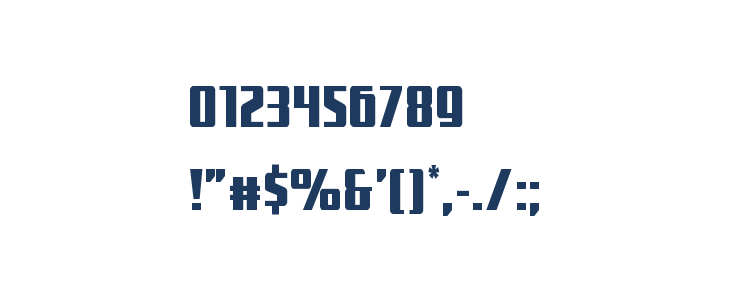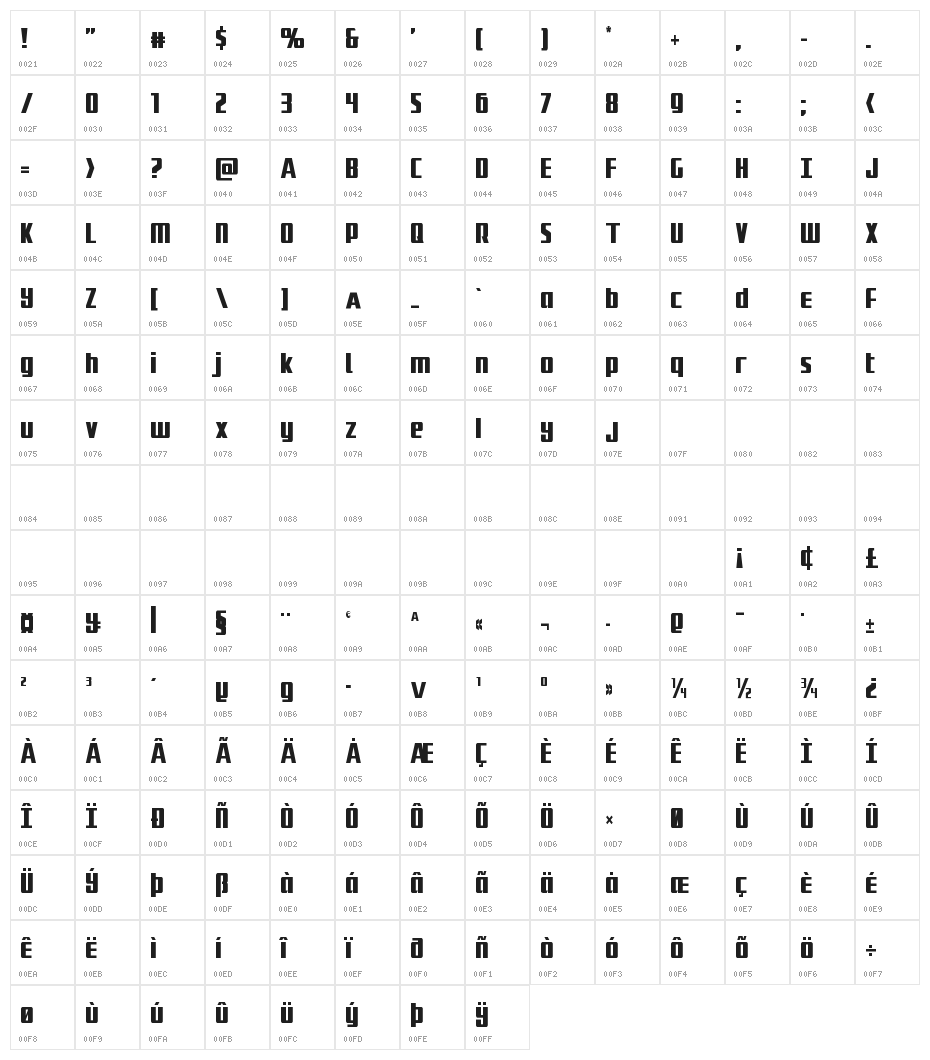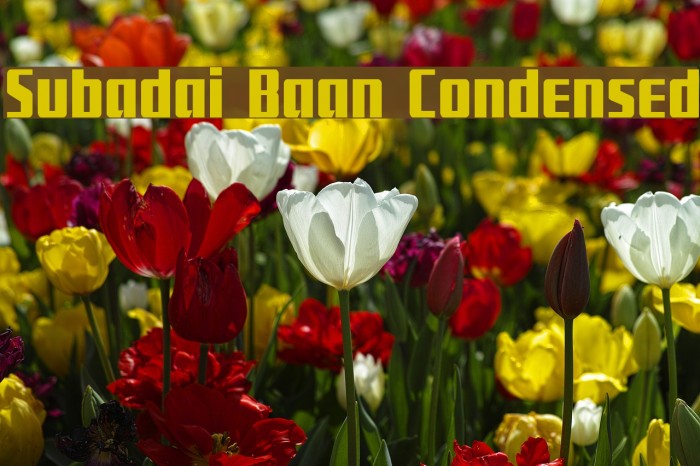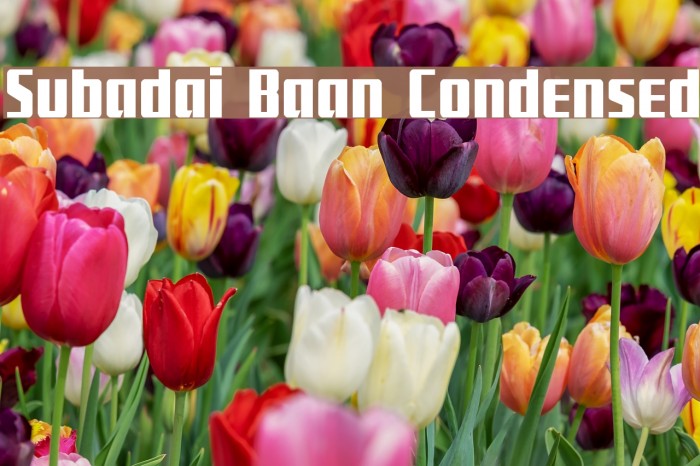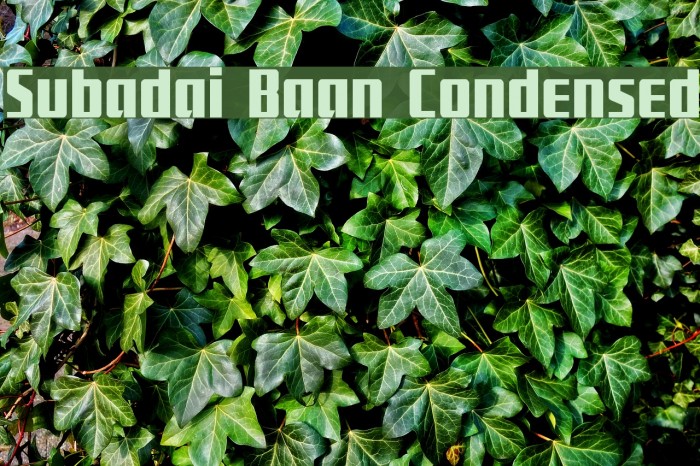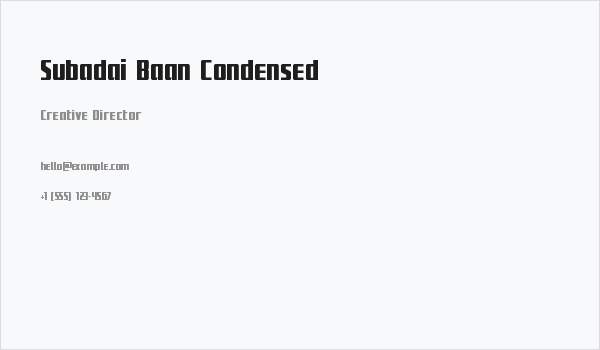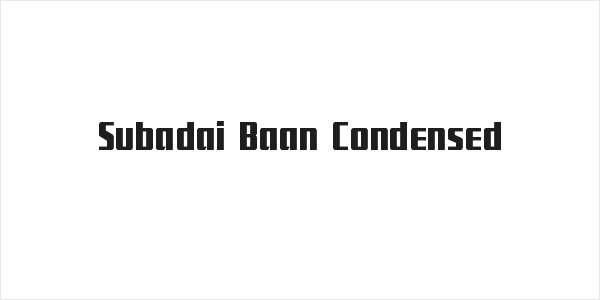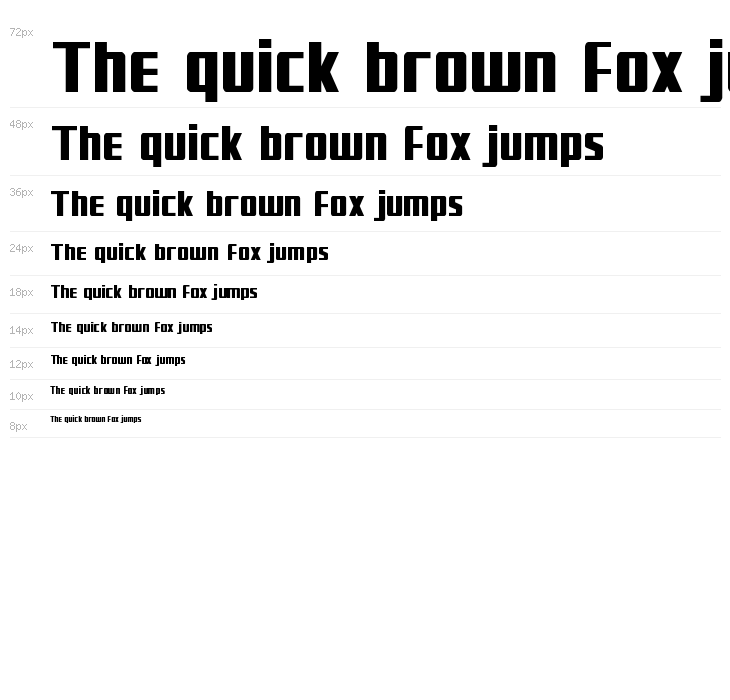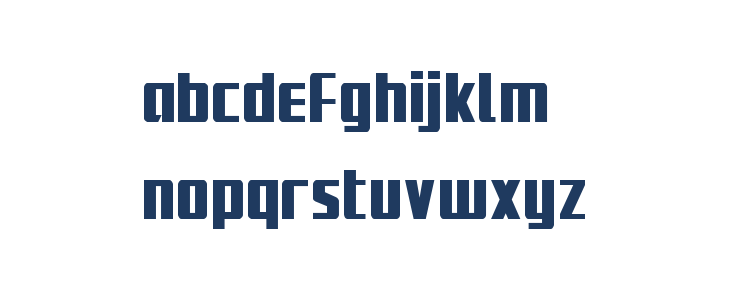
Subadai Baan Condensed Font
Subadai Baan Condensed Description
This font features a bold and assertive design with a condensed structure, making it ideal for impactful headlines and attention-grabbing text. The characters are uniformly thick, providing a strong visual presence. The uppercase and lowercase letters maintain a consistent height, contributing to a cohesive and structured appearance. The numerals and special characters are designed to match the boldness of the alphabet, ensuring uniformity across different types of content. The overall style is modern and geometric, with sharp edges and clean lines that enhance its readability and visual appeal.
| Proposed Projects | Ideal for posters, branding, logos, and headlines where a strong visual impact is needed. |